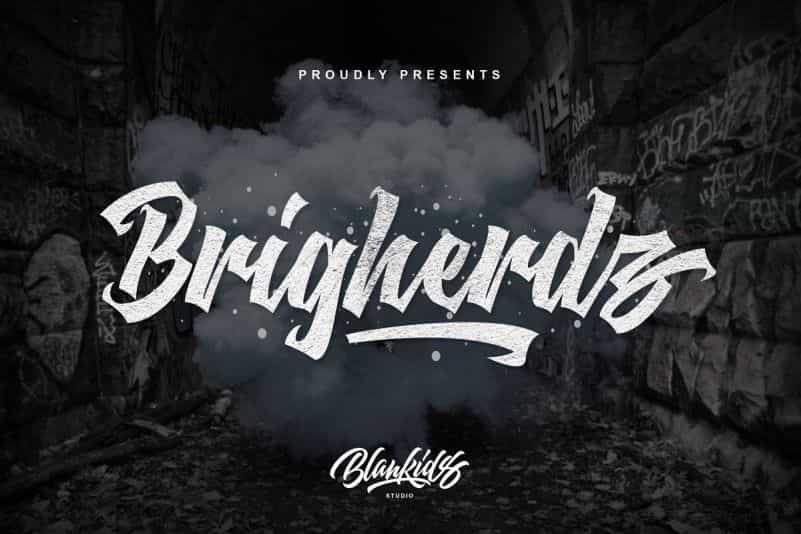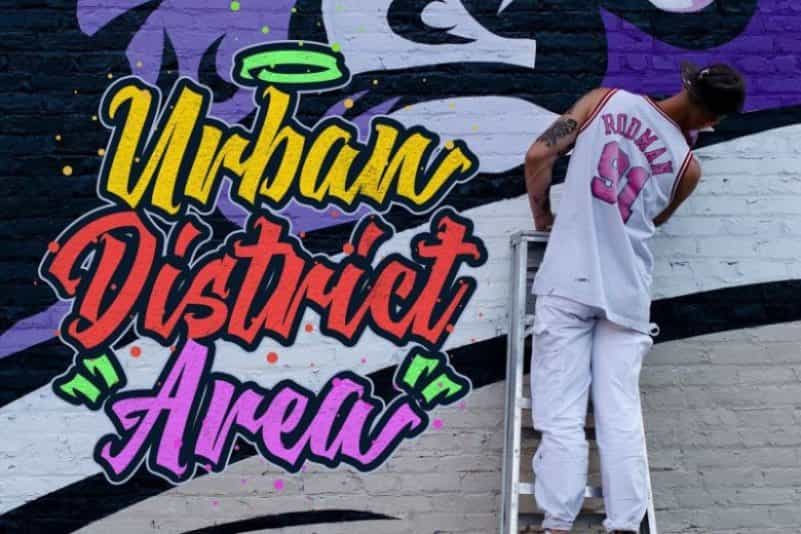
Brigherdz is a A Modern Blackletter Typeface, It has a modern black letter look, with a nod towards modern design and a reference to Old English Gothic Scriptures. It is most appropriate for use as a display font for the editors or for the packaging industry. Brigherdz has opened with type features and multilingual accent that can be useful in logo, poster, badge, book cover, T-shirt design, packaging’s, and any other.